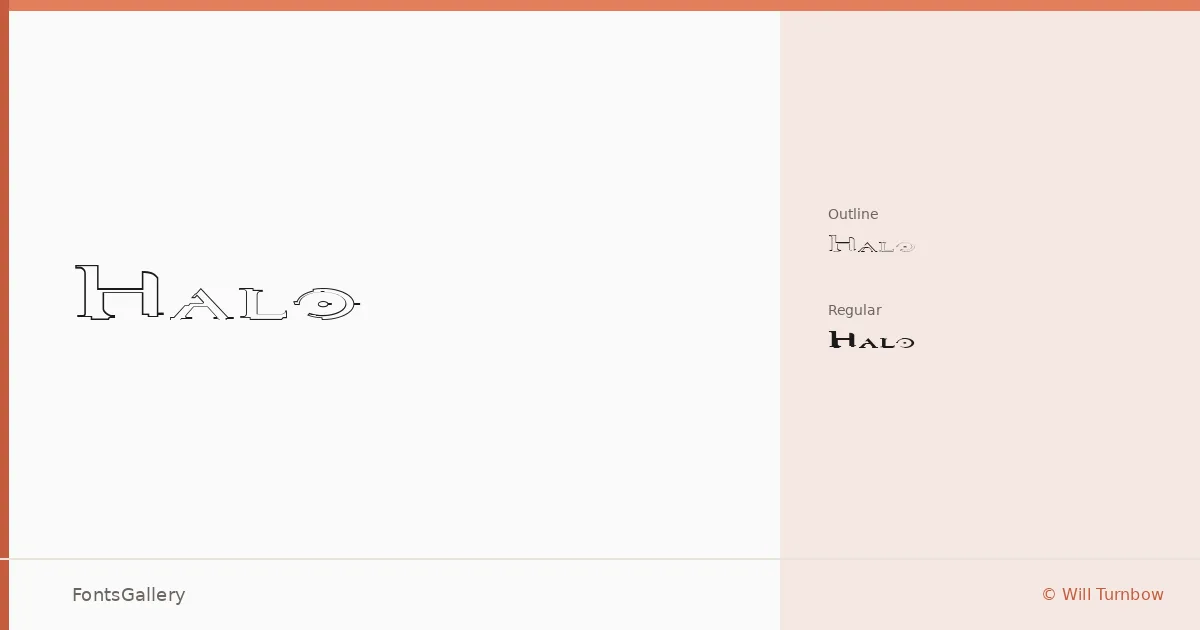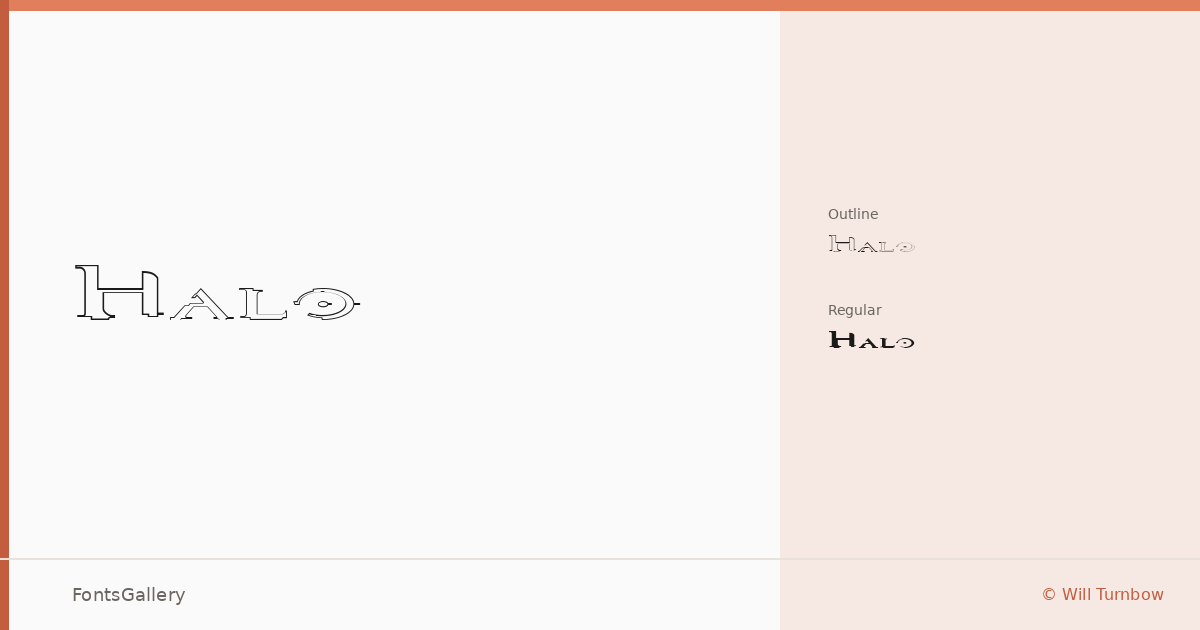
About Halo Font
There is a particular kind of refinement in letterforms that lean into ceremony without tipping into excess — and that is exactly where Will Turnbow has aimed this display family. Halo comes in two cuts: a solid Regular and a companion Outline Regular, both delivered as TTF files, giving you a filled and an open version of the same carefully drawn forms to work across a single layout.
The mood sits squarely in classic, luxury territory — the kind of elegance that reads vintage without feeling dated. Display typefaces with this character tend to carry weight in negative space as much as in stroke, and the Outline Regular makes that relationship visible, letting the shapes breathe while keeping all the authority of the solid cut. Together, the two styles are made for headlines and identities where the letterforms themselves are the focal point.
Branding, logo work, wedding stationery, magazine covers, and large-format posters are the natural terrain here — contexts where a single word or short phrase needs to hold the room. The Latin character set is partial, so confirm coverage against any extended copy before committing to a multilingual job. For body text or secondary typography, the listed pairings run a useful range: the neutrality of Helvetica or Abrade provides clean contrast, while Canela, ABC Arizona, and (AH) Manal offer more editorial warmth alongside the display cuts.